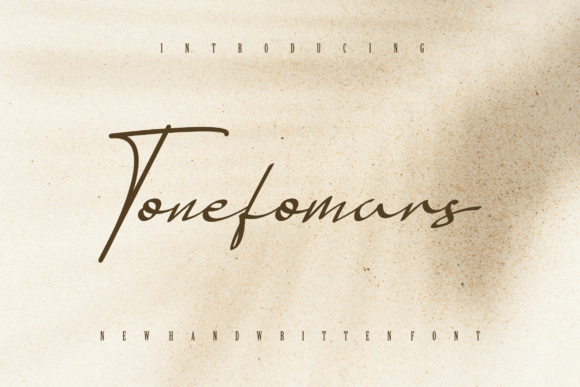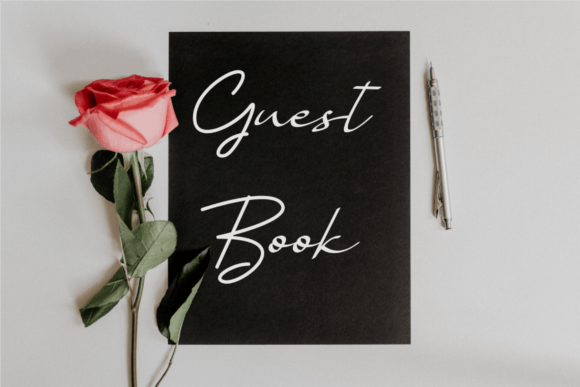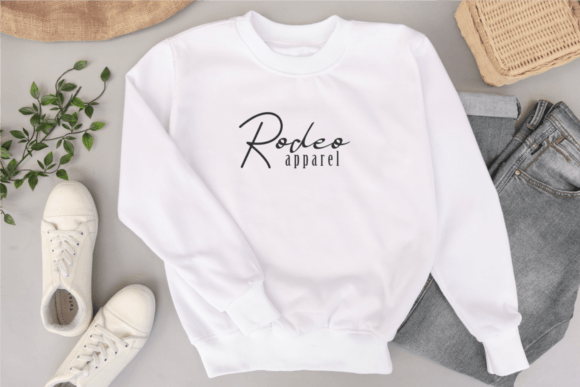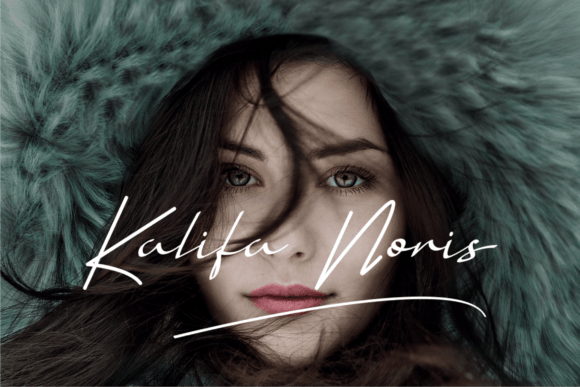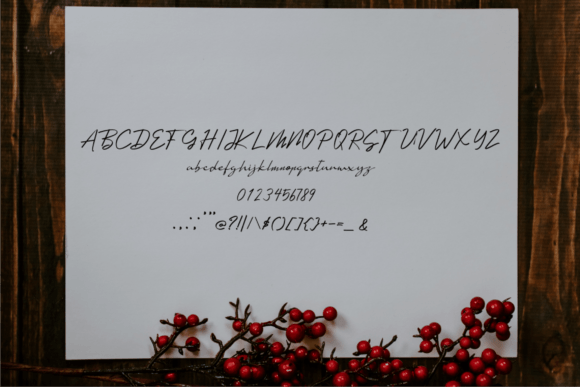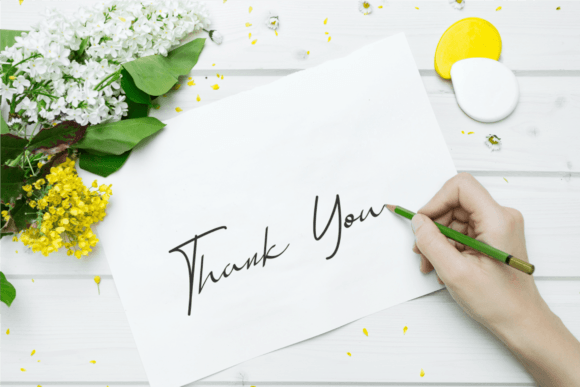
Tonefomars Font
About Tonefomars Font
Tonefomars is a thin and authentic script font. The font is suitable for any branding project like logo, t-shirt printing, esports, and many more. It will look outstanding in a wide range of contexts.